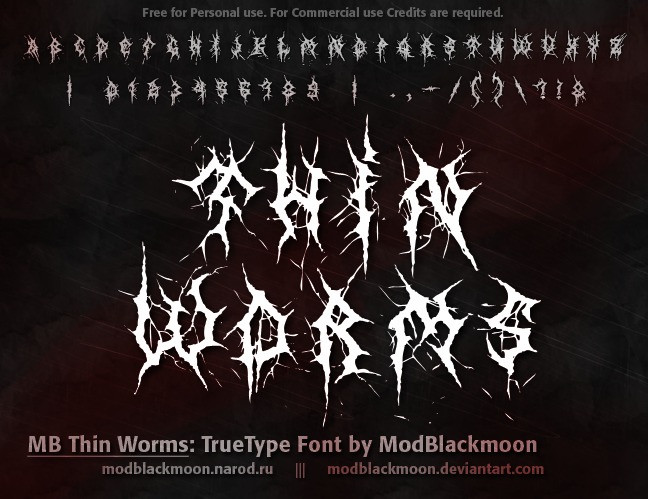
MB Thin Worms Font
Spiked, Horror Black Metal Font. Hand-drawing vectorized manually in Photoshop.
Incl. English letters and Numbers, some most common signs, some letters from nordic languages.